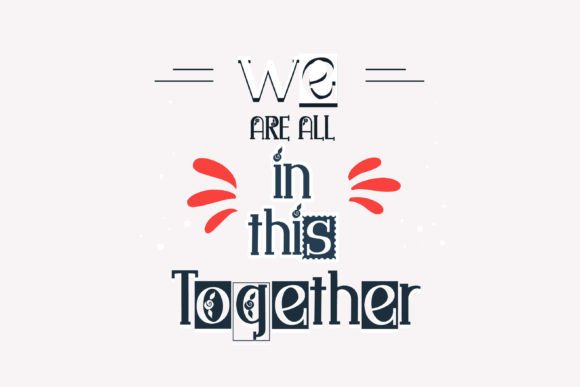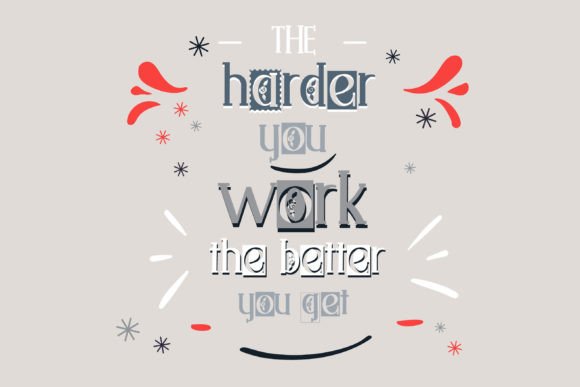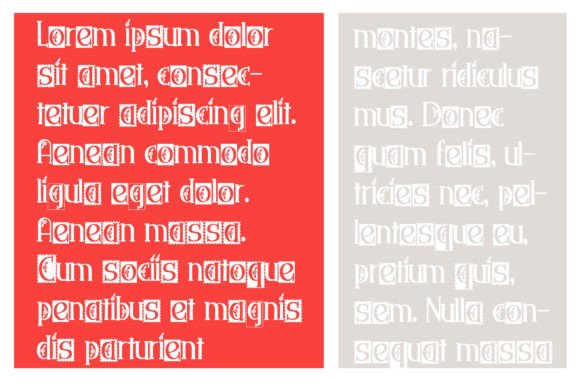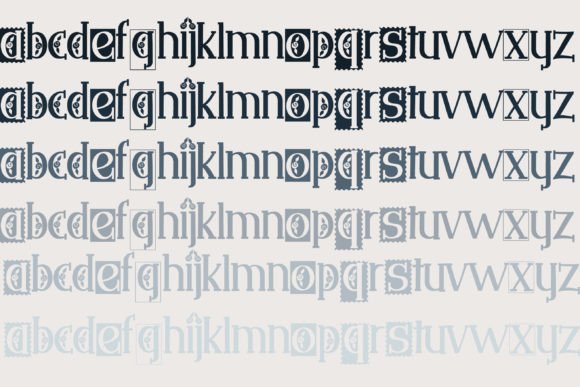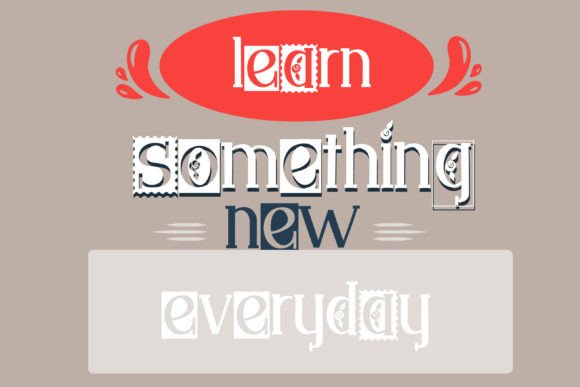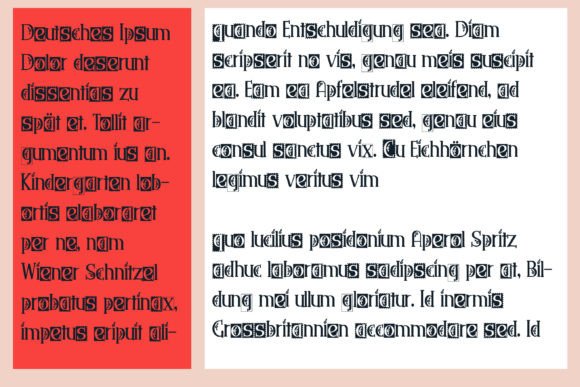
Introducing the Champion of Roses Font: Add a Touch of Elegance and Whimsy to Your Designs
Are you tired of using the same old fonts for your designs? Do you want to add a touch of elegance and whimsy to your projects? Look no further than the Champion of Roses Font, a beautiful serif font that features roses throughout. This charming font is perfect for designers and crafters who want to create stunning posters, greeting cards, t-shirts, branding materials, quotes, and more.
A Font that Blooms with Creativity
The Champion of Roses Font is a unique and eye-catching font that is sure to make your messages stand out. With its intricate rose designs and classic serif style, this font is perfect for adding a touch of sophistication and charm to your designs. Whether you’re creating a romantic greeting card or a bold poster, this font is sure to impress.
One of the best things about the Champion of Roses Font is its versatility. This font can be used for a wide range of projects, including:
- Posters: Create eye-catching posters that showcase your message in style.
- Greeting cards: Add a touch of elegance and whimsy to your greeting cards.
- T-shirts: Create unique and stylish t-shirts that are sure to turn heads.
- Branding materials: Use this font to create consistent and recognizable branding materials.
- Quotes: Add a touch of sophistication and charm to your quotes.
- And more: The Champion of Roses Font can be used for any project that requires a touch of elegance and whimsy.
Why Choose the Champion of Roses Font?
There are many reasons why the Champion of Roses Font is a great choice for designers and crafters. Here are just a few:
- Unique and eye-catching: This font features intricate rose designs that are sure to make your messages stand out.
- Versatile: This font can be used for a wide range of projects, from posters to greeting cards to t-shirts.
- Elegant and whimsical: This font adds a touch of sophistication and charm to your designs.
Tips for Using the Champion of Roses Font
Here are a few tips for getting the most out of the Champion of Roses Font:
- Use it sparingly: This font is perfect for adding a touch of elegance and whimsy to your designs, but it can be overwhelming if used too much. Use it sparingly to create a bold and eye-catching design.
- Experiment with different colors: This font looks great in a variety of colors, from bold and bright to soft and pastel. Experiment with different colors to find the perfect look for your design.
- Pair it with other fonts: This font pairs well with a variety of other fonts, from classic serif fonts to bold sans-serif fonts. Experiment with different font combinations to find the perfect look for your design.
The Champion of Roses Font is a beautiful and versatile font that is perfect for designers and crafters who want to add a touch of elegance and whimsy to their designs. With its intricate rose designs and classic serif style, this font is sure to make your messages stand out. Whether you’re creating posters, greeting cards, t-shirts, or branding materials, this font is a great choice. So why wait? Download the Champion of Roses Font today and start creating stunning designs that are sure to impress.